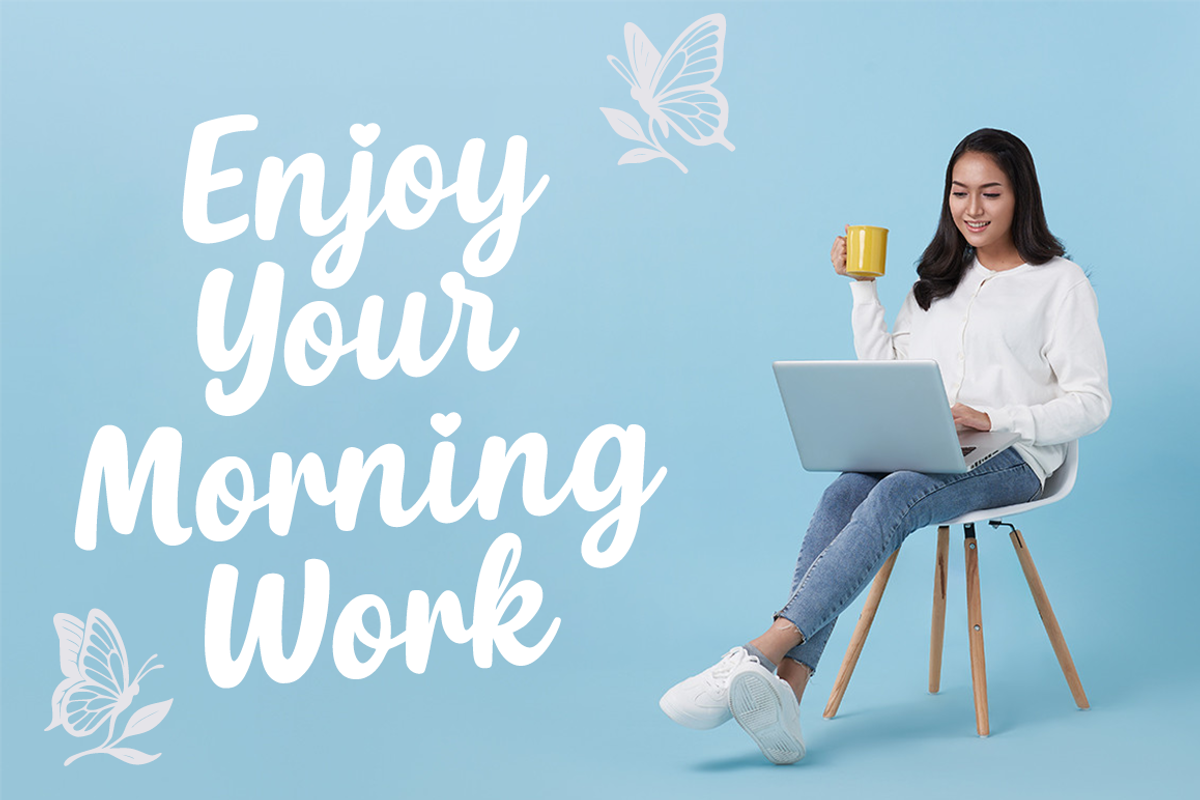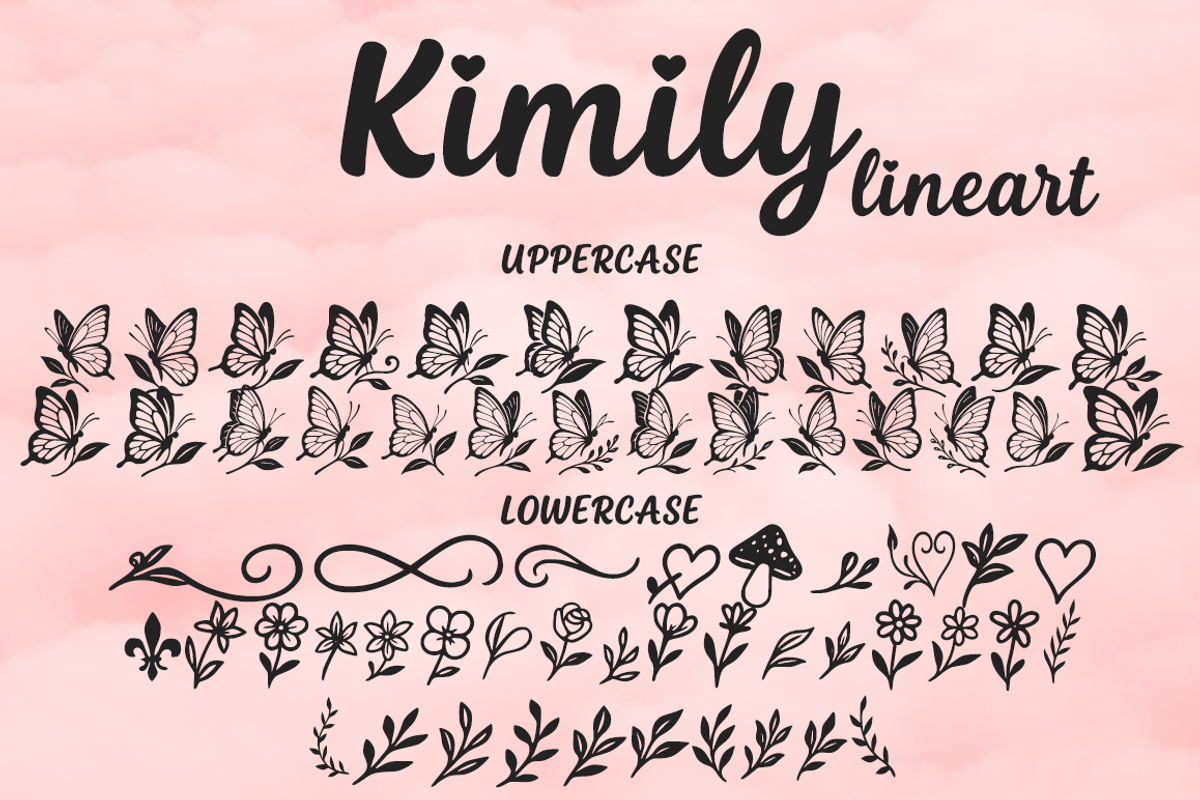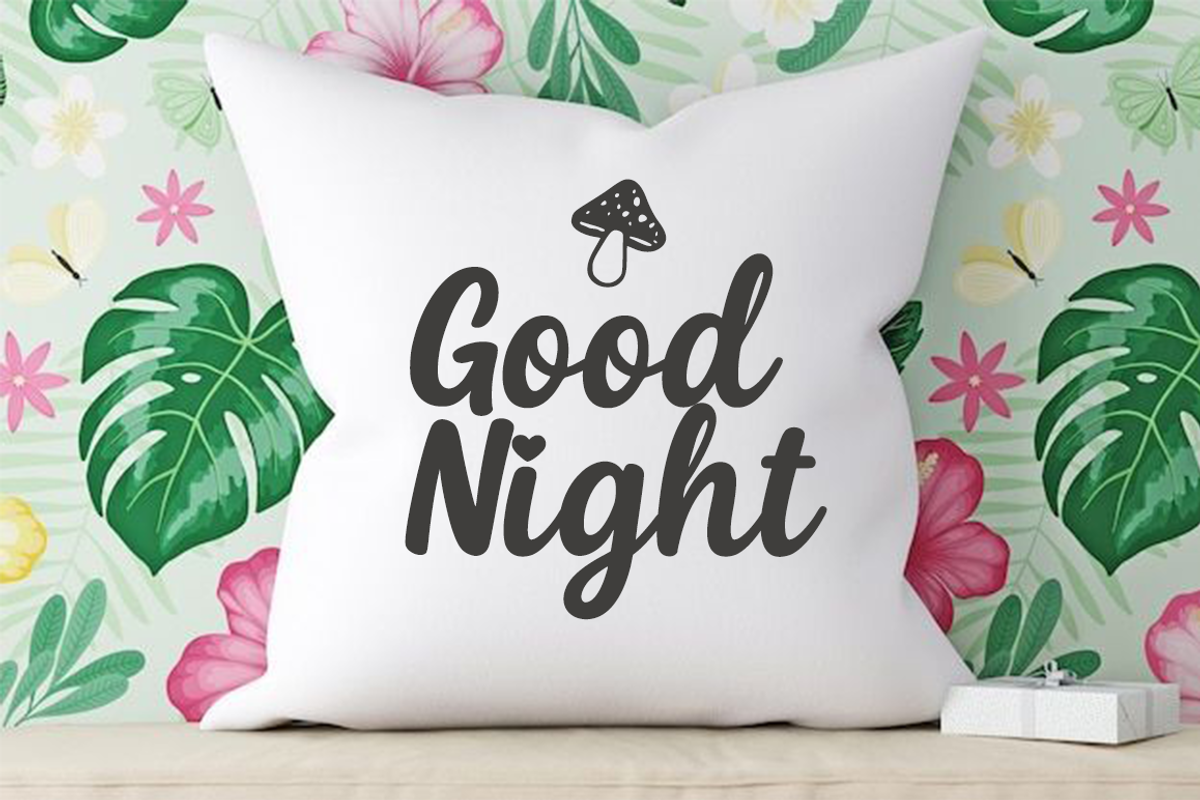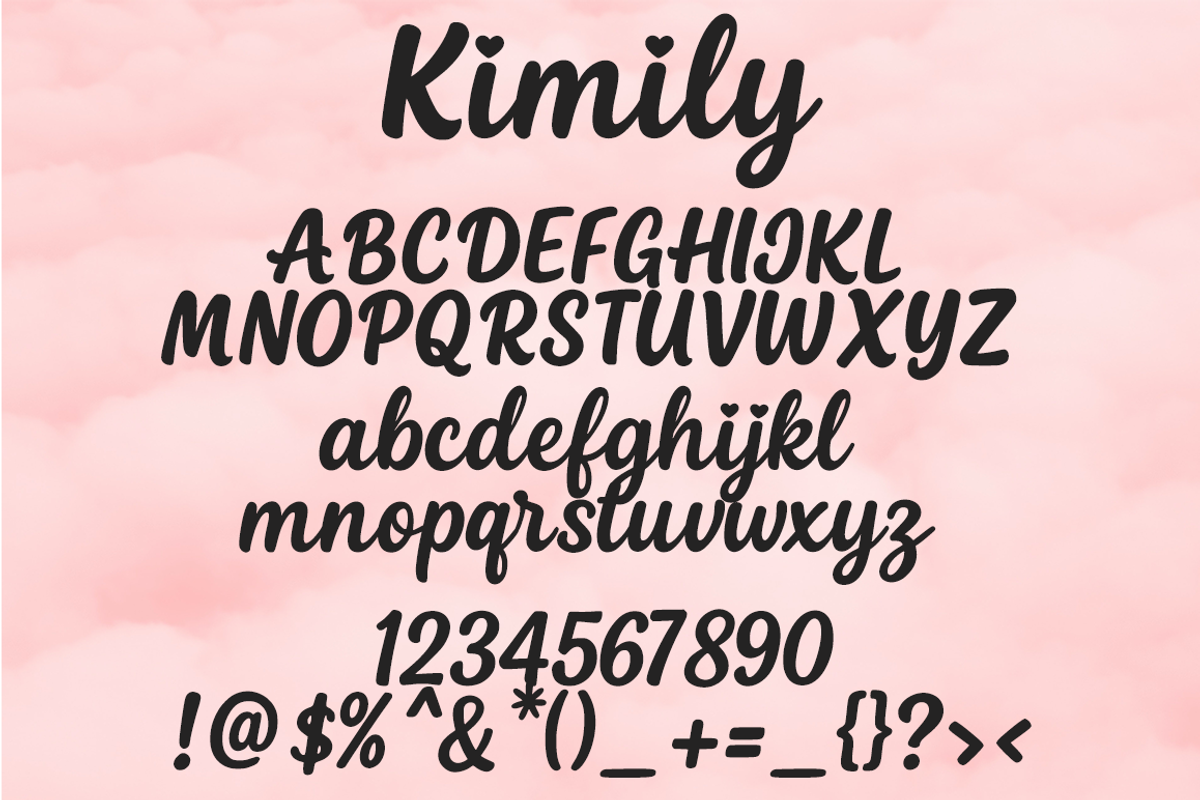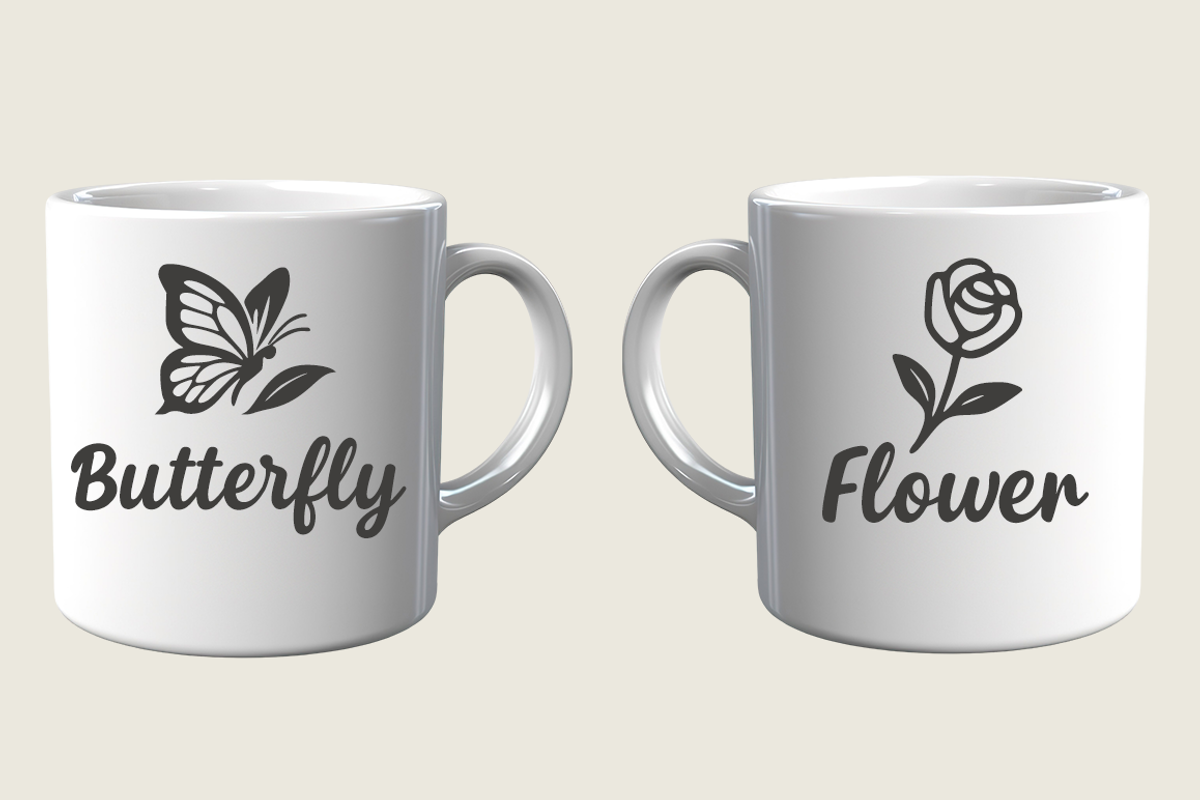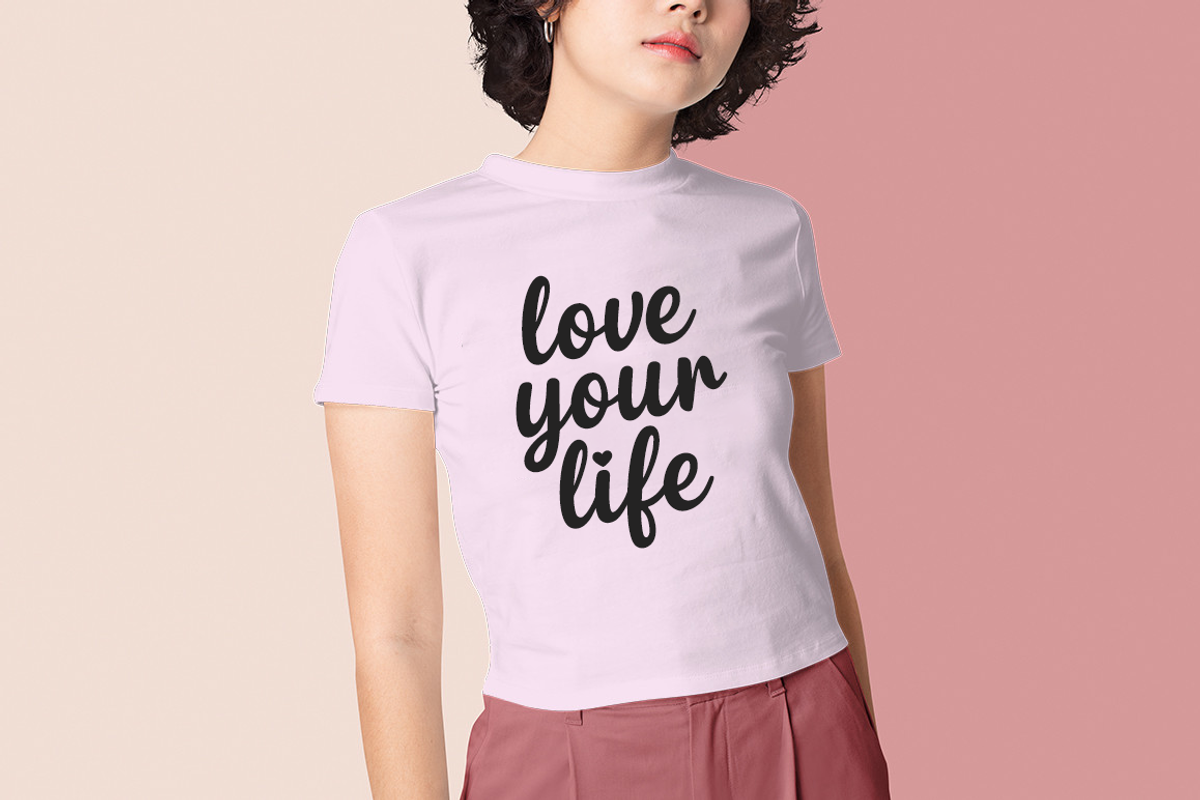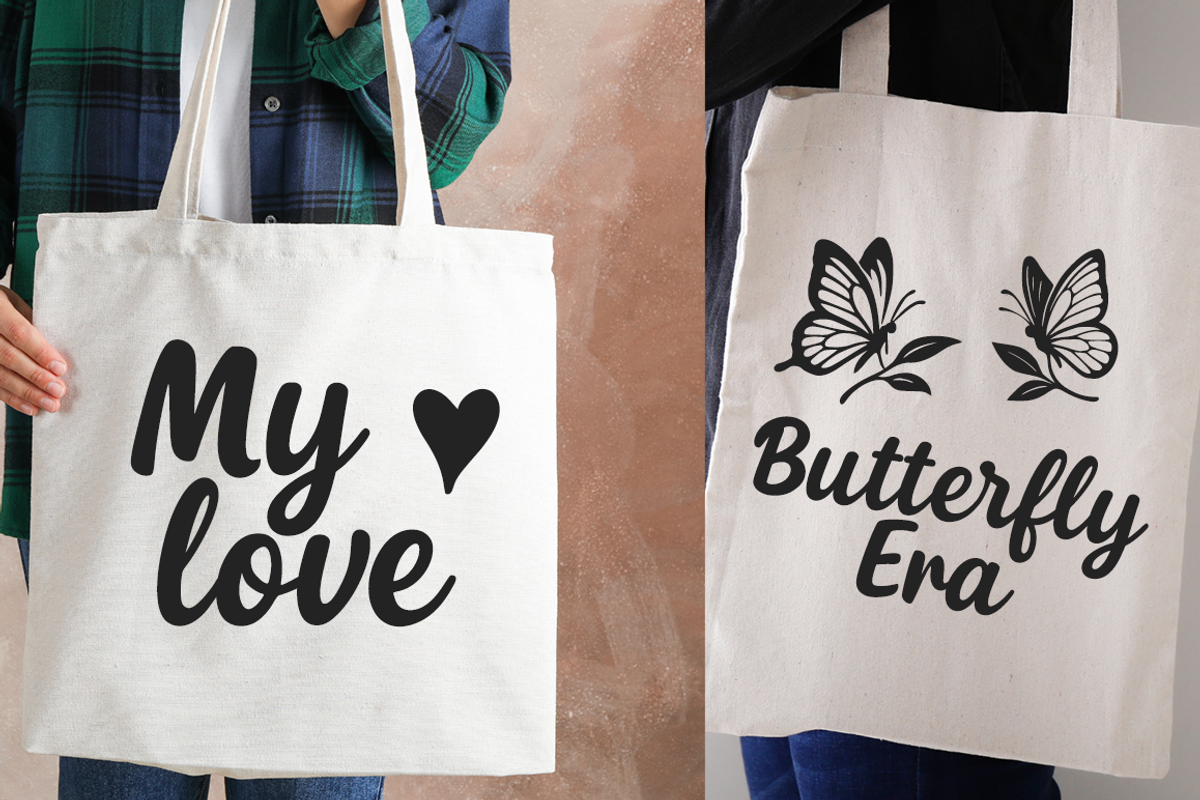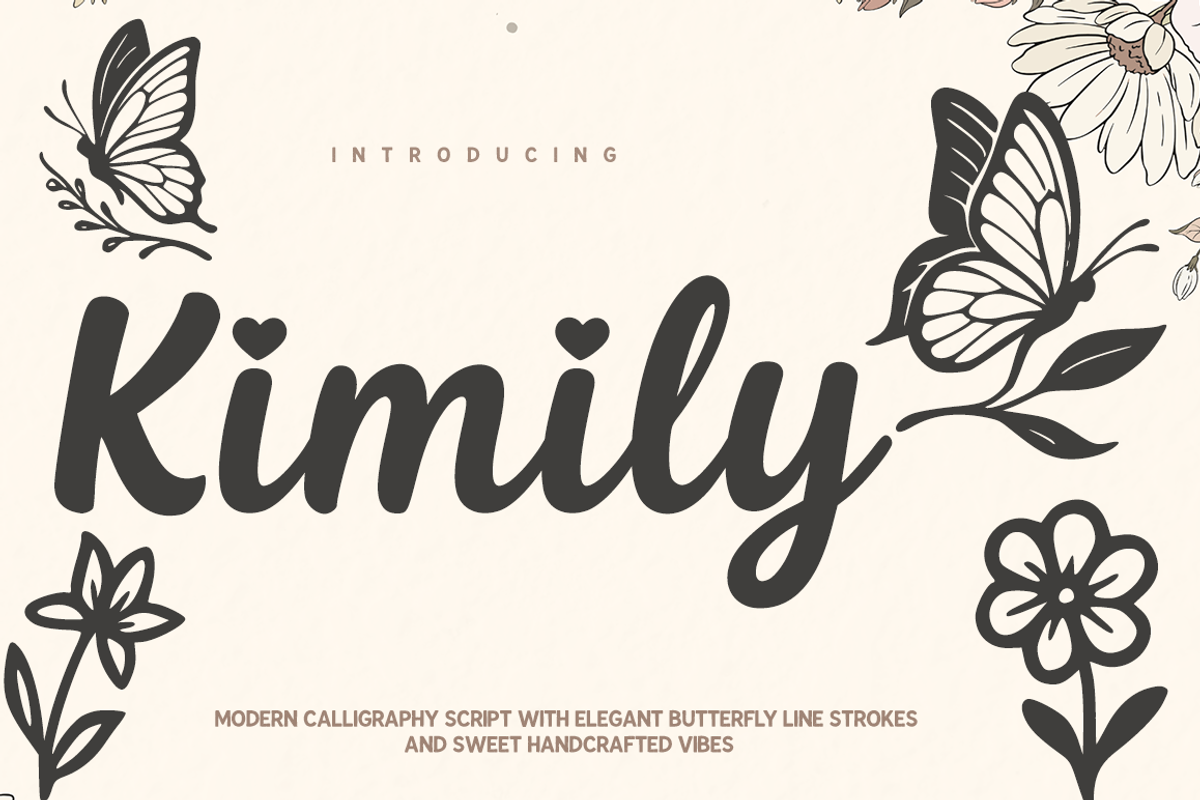
Kimily with Extra line art
Kimily — Modern Calligraphy Script Font Kimily is a modern calligraphy script featuring smooth strokes and elegant handcrafted curves. The letterforms present balanced contrast, clean readability, and a soft feminine tone. Subtle heart accents on selected characters add a sweet visual touch.
This font includes butterfly line art strokes as decorative elements. The butterfly and organic line motifs blend naturally with the calligraphic style, creating a graceful and romantic aesthetic suitable for floral, wedding, and handcrafted themes.